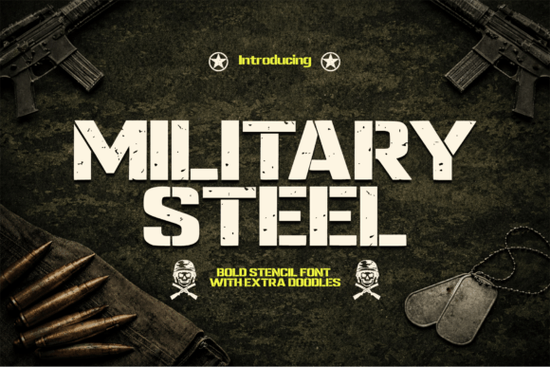
If you're looking for a bold, no-nonsense font that brings a rugged, industrial edge to your designs, Military Steel is a solid choice. This stencil-style typeface stands out with its sharp lines, strong structure, and subtle distressed texture perfect for projects where toughness and clarity matter.
What makes Military Steel stand out?
Built with real-world applications in mind, Military Steel combines tactical inspiration with clean typography. The stencil construction gives it an authentic military look, while the slight wear and tear add character without sacrificing legibility. Whether you're working on a large poster or a small product label, the letters remain sharp and readable at any size.
The font’s design balances strength and precision. Each letterform is carefully crafted to maintain consistency across uppercase and lowercase characters, making it ideal for both short slogans and longer headlines. It’s not just about looks it’s built to perform under pressure, much like the environments it’s meant to represent.
Where can you use Military Steel?
This font works well in many creative fields. Here are some common uses:
- Branding & logos – For companies in defense, outdoor gear, or automotive industries, it adds instant authority.
- Apparel & merchandise – Great for T-shirts, hoodies, and patches where a tough, masculine vibe is key.
- Posters & event promotions – Perfect for concerts, sports events, or military-themed campaigns.
- Game titles & UI elements – Fits well in strategy games, shooters, or any project needing a gritty feel.
- Packaging design – Adds weight and presence to product boxes, especially for tools, survival gear, or premium beverages.
How does it compare to other bold display fonts?
While many bold fonts focus purely on thickness, Military Steel brings something extra: authenticity. Unlike generic blocky styles, this one includes subtle imperfections that mimic real stencil wear like uneven edges or light smudging. These details make it feel less digital and more hand-crafted, which is a big plus for designers who want realism.
If you’ve used fonts like Raither Display, Vintage Magazine, or Sunny Gang, you’ll notice that Military Steel leans into a different mood one of function over flair. It doesn’t try to be playful or retro; instead, it aims for impact and reliability.
For contrast, if you’re after something more energetic and fun, Chunky Summer offers a bolder, more casual vibe. And if you want a mix of toughness and personality, Pepper Pedro delivers a unique, slightly quirky twist. But when you need something that feels grounded and serious, Military Steel fits the bill.
Why designers choose this font
It’s not just about style it’s about purpose. Designers appreciate how this font holds up in high-contrast prints, screen displays, and even laser cutting. The clean stroke width ensures consistent output across materials, whether you’re printing on fabric, metal, or paper.
Final thoughts: Is Military Steel right for your next project?
If your goal is to communicate strength, durability, and precision, then yes this font deserves a spot in your toolkit. It’s not flashy, but it’s dependable. It doesn’t try to impress with gimmicks; it earns respect through consistency and presence.
Whether you're a small business owner launching a new brand, a crafter selling custom gear, or a designer building a bold visual identity, Military Steel offers a straightforward way to make your message land hard.